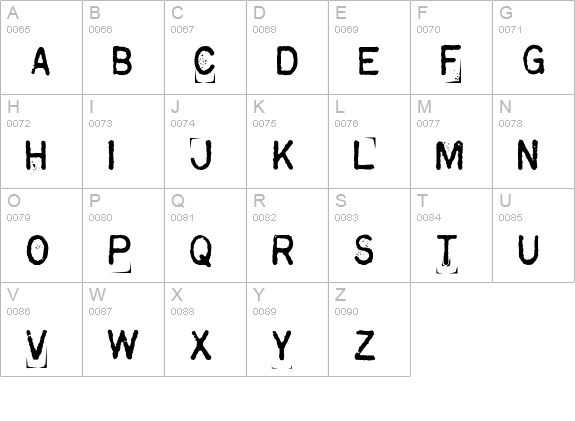
Kingthings Printingkit is a stunningly unique font that exudes the charm of vintage letterpress printing. With its intricate and detailed design, it captures the essence of traditional typography, making it perfect for adding a touch of nostalgia to any project. This font boasts a wide range of characters, from uppercase letters to numbers and punctuation marks, allowing for endless creative possibilities. Each letter is meticulously crafted, showcasing the attention to detail that went into its creation. What makes Kingthings Printingkit even more appealing is that it is freely available to download at FontsMarket.com. This means that you can add this beautiful font to your collection without having to spend a dime. Whether you're a graphic designer, a typographer, or simply someone looking to enhance their creative endeavors, this font will undoubtedly become a valuable asset. The versatility of Kingthings Printingkit is truly remarkable. It can be used for everything from headlines and titles to body text and logos. Its timeless appeal and vintage aesthetic make it perfect for projects that require a touch of elegance and sophistication. With its bold and distinctive appearance, Kingthings Printingkit is guaranteed to make your designs stand out. Whether you're working on invitations, posters, packaging, or any other project, this font will elevate your work to new heights. Download Kingthings Printingkit today from FontsMarket.com and experience the beauty and versatility of this remarkable font. Let its timeless charm and exquisite details unleash your creativity and bring your designs to life. Best of all, it's completely free, so you can enjoy its benefits without any hesitation.